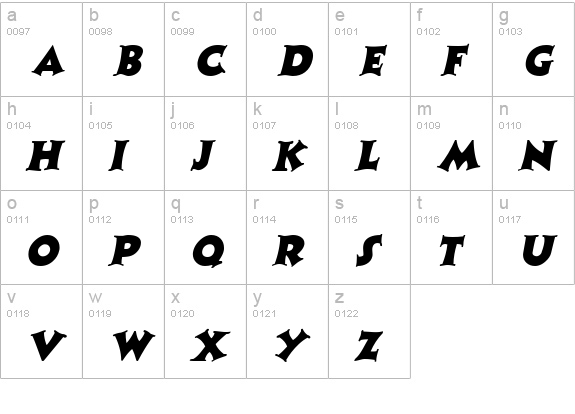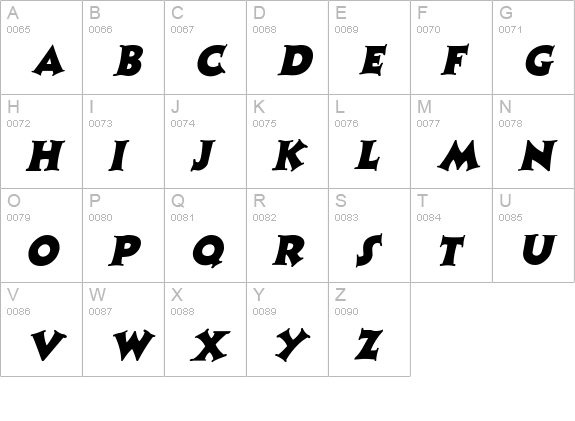
Coaster Italic Font Details
Coaster Italic is a distinctive, italic variant in the Coaster typeface family \xE2\x80\x94 well suited to design and typography projects.
Discover the elegant and stylish Coaster Italic font, designed to add a touch of sophistication to any design project. With its sleek lines and graceful curves, Coaster Italic exudes a sense of modernity and class. This versatile typeface is perfect for creating eye-catching headlines, branding materials, invitations, and more. What sets Coaster Italic apart is not only its aesthetic appeal but also its accessibility - it is available for free download at FontsMarket.com. This means that you can elevate your designs without breaking the bank. Whether you're a professional designer or a DIY enthusiast, Coaster Italic is sure to become a go-to choice for your typography needs. Embrace the beauty and functionality of Coaster Italic font today, and watch your designs come to life with its timeless charm and effortless sophistication. Download your free copy now at FontsMarket.com and start creating stunning visuals that stand out from the crowd.